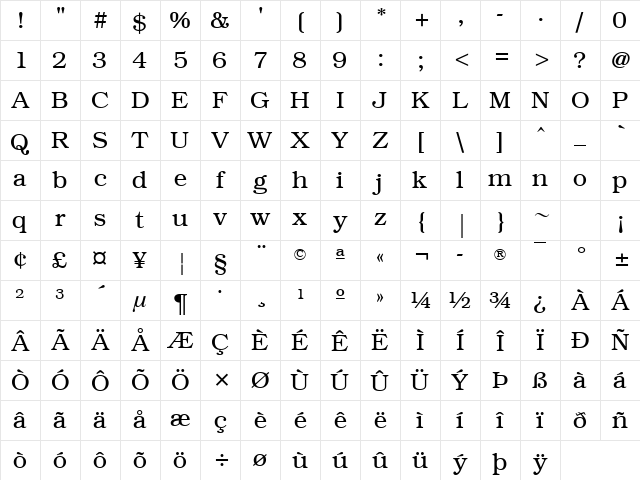
PC Brussels Light
Design Context for PC Brussels
PC Brussels is a composed and adaptable typeface that performs quietly and consistently across a wide range of design contexts. Its slender proportions lend an understated elegance to any composition.